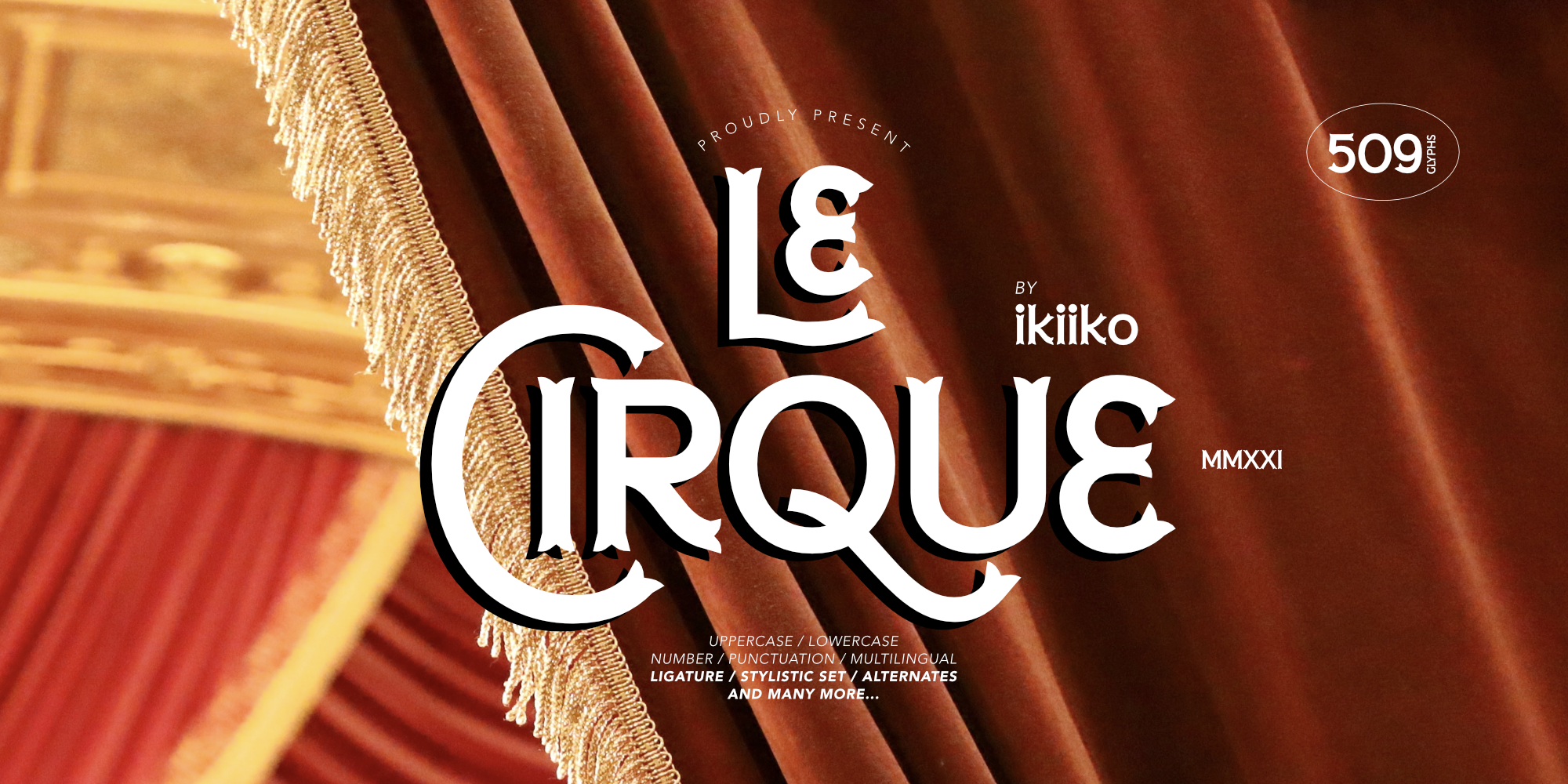
Le Cirque Font is ideal for circus event promotions, theatrical poster designs, carnival marketing materials, entertainment venue branding, vintage-style advertisements, cabaret show graphics, festival announcements, magic show promotions, performance art communications, and whimsical entertainment applications. This spectacular display typeface brings theatrical grandeur and carnival magic to captivating entertainment design applications.
What makes Le Cirque Font so exciting is its extraordinary ability to capture the breathtaking spectacle and magical atmosphere of the greatest circus performances through letterforms that seem to leap from the page with acrobatic grace and theatrical flair. The font features dramatically stylized characters with ornate flourishes and spectacular proportions that evoke the grandeur of vintage circus posters and the mesmerizing artistry of big-top entertainment. Its distinctive characteristics include elaborate decorative elements, dynamic baseline variations, and theatrical stroke patterns that mirror the death-defying performances and magical illusions that define circus artistry. The font's connection to entertainment heritage and proven ability to capture audience imagination make Le Cirque Font perfect for projects requiring spectacular visual impact and theatrical authenticity.
The Le Cirque Font family includes multiple spectacular variations: Regular, Bold, Ornate, and Shadow versions with theatrical character sets. The comprehensive character collection encompasses complete Latin alphabet support with circus-inspired alternates, dramatic numerals, spectacular punctuation marks, carnival symbols, and magical decorative elements that enhance entertainment messaging. Professional features include contextual alternates that create theatrical variety, elaborate swash characters for dramatic emphasis, ornamental flourishes that add spectacular flair, and circus-inspired spacing that creates rhythmic movement reminiscent of carnival music and acrobatic performances.
Whether you're creating entertainment promotions, theatrical communications, or spectacular event materials that celebrate the magic of live performance, Le Cirque Font Free Download provides the dramatically captivating typography that transforms ordinary announcements into irresistible invitations to wonder and amazement. Its exceptional theatrical character makes it perfect for entertainment venues, performance companies, and cultural events where spectacular visual impact and magical atmosphere are essential for audience attraction and engagement, while its carefully crafted construction ensures professional presentation that maintains readability. The font's combination of circus heritage and contemporary functionality makes it invaluable for entertainment marketers, event promoters, and any project seeking to communicate the spectacular wonder, magical excitement, and unforgettable theatrical experience that defines the greatest entertainment traditions and captivating live performance experiences.